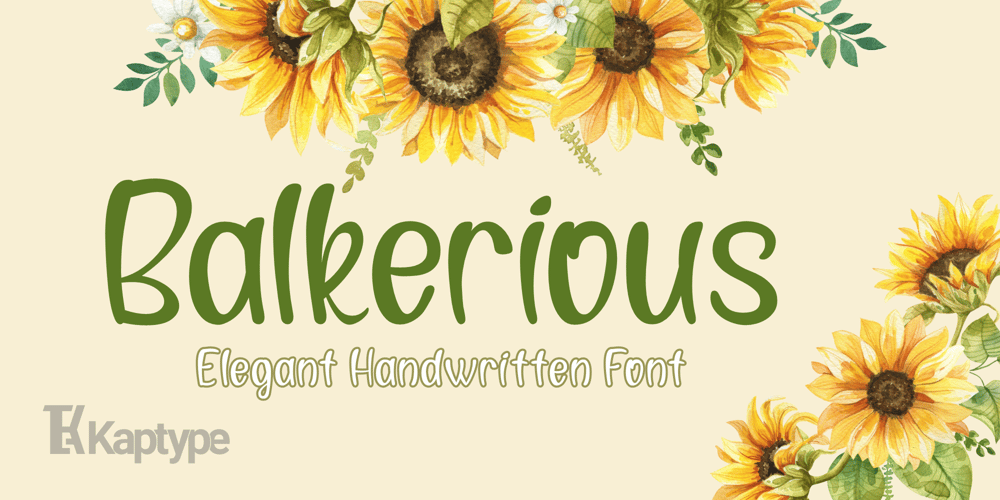
Balkerious Font Family was designed by Hristo Kaptebilov and published by Kaptype. Balkerious contains 1 styles and family package options. Balkerious is a modern elegant font. Font with a touch of classy elements. Perfect for logos, headlines, cards, invites, paragraphs, cover photos, web design, lettering, and other designs.